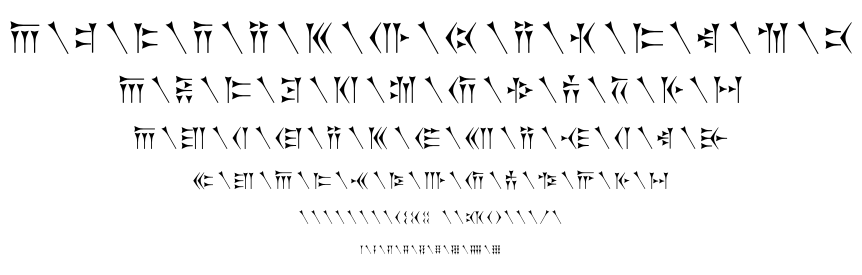
Made for researchers of Old Persian cuneiform script, Zarathustra is a stylized
version of my persian cuneiform series. Differently from Kakoulookiam and
Khosrau fonts, all the glyphs here stands up the baseline. For more information on the font and how to use it, contact me: fereydoun23@gmail.com